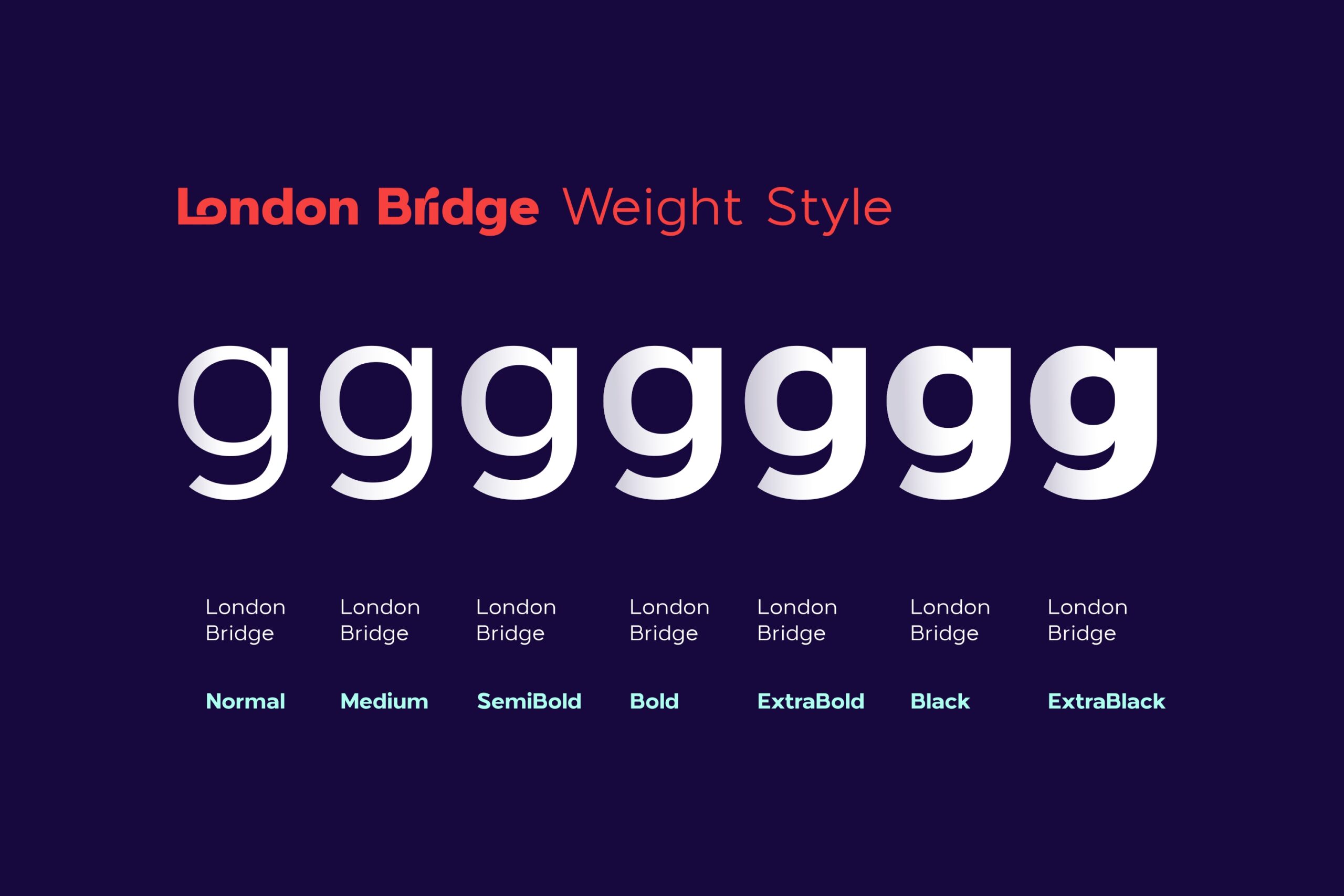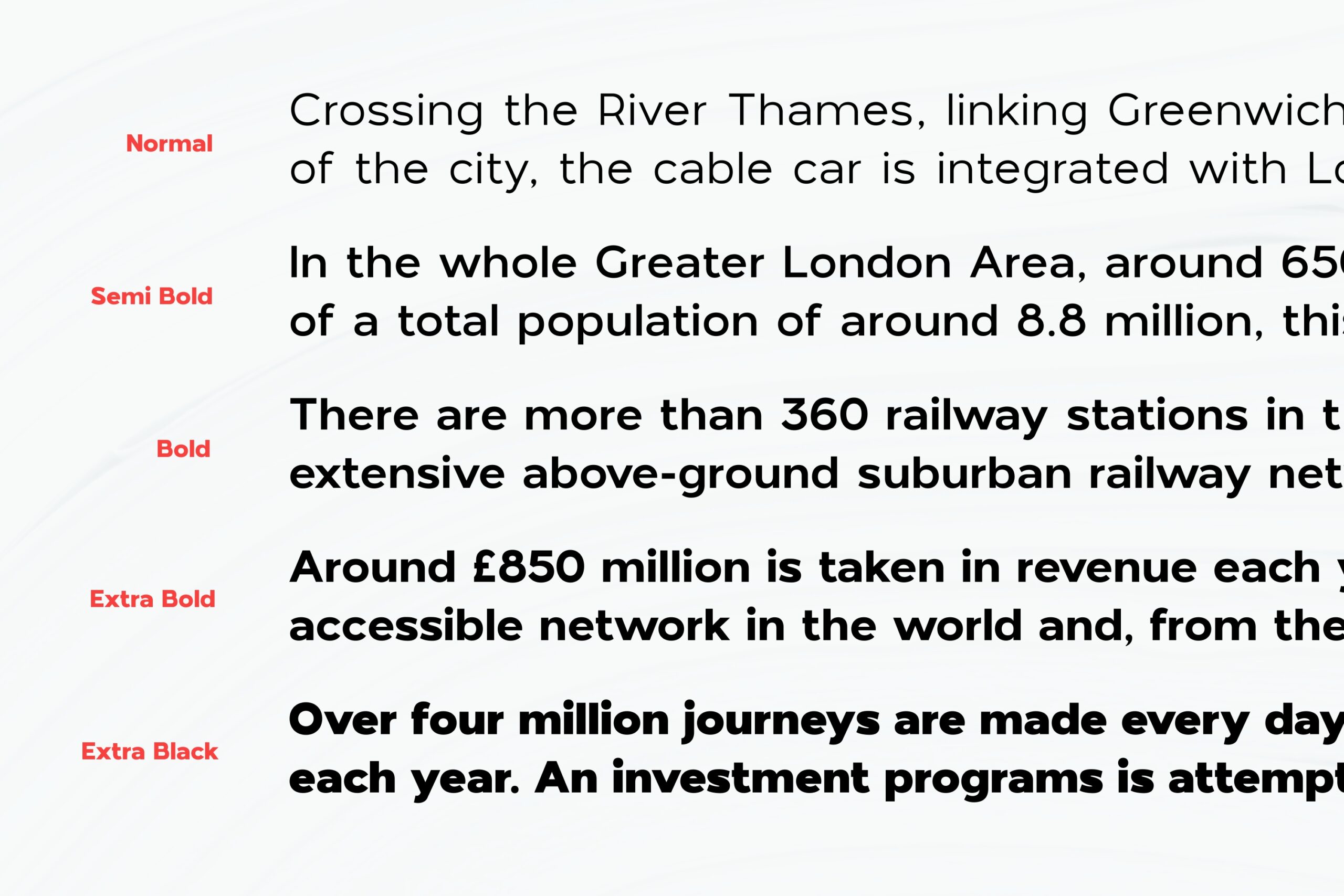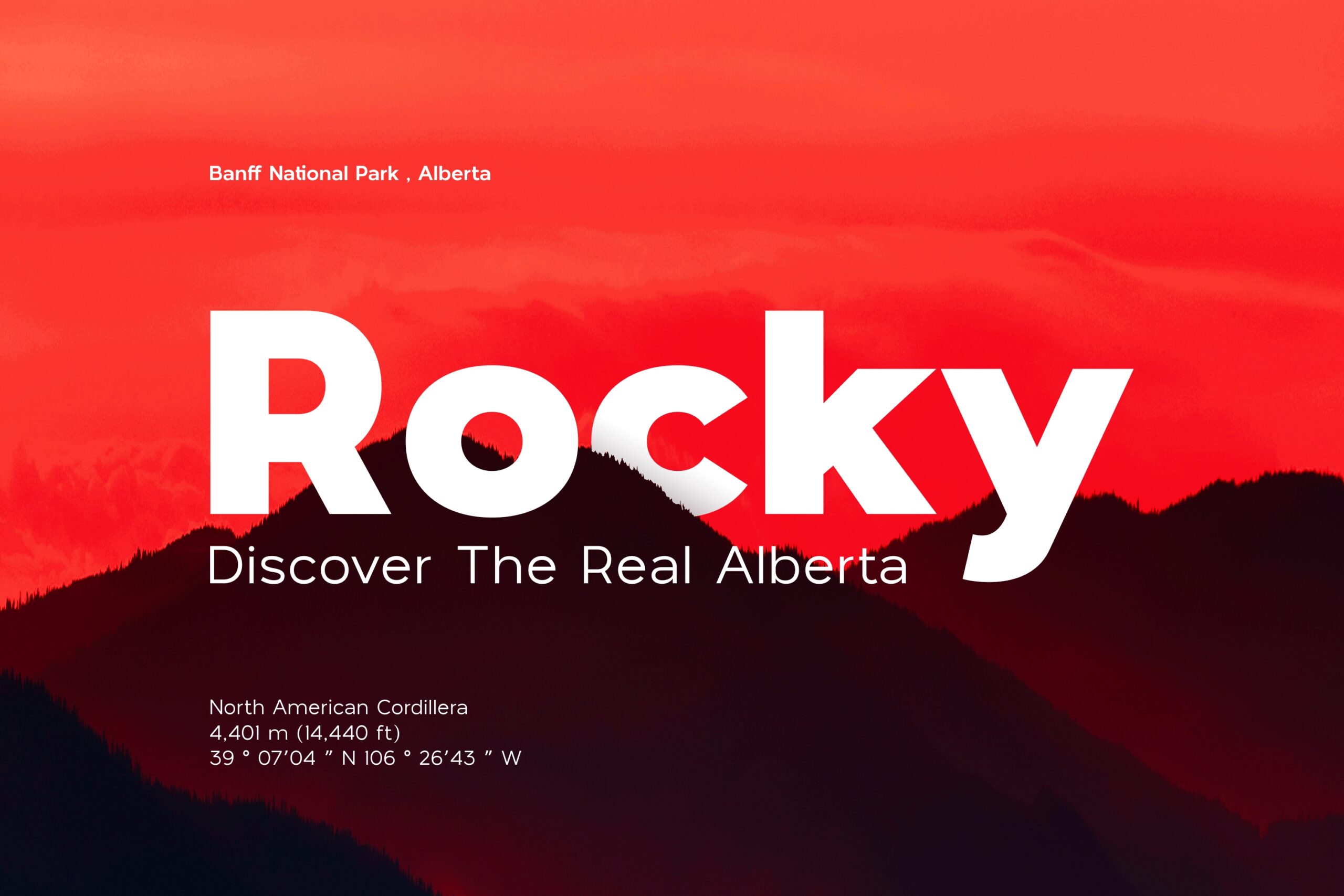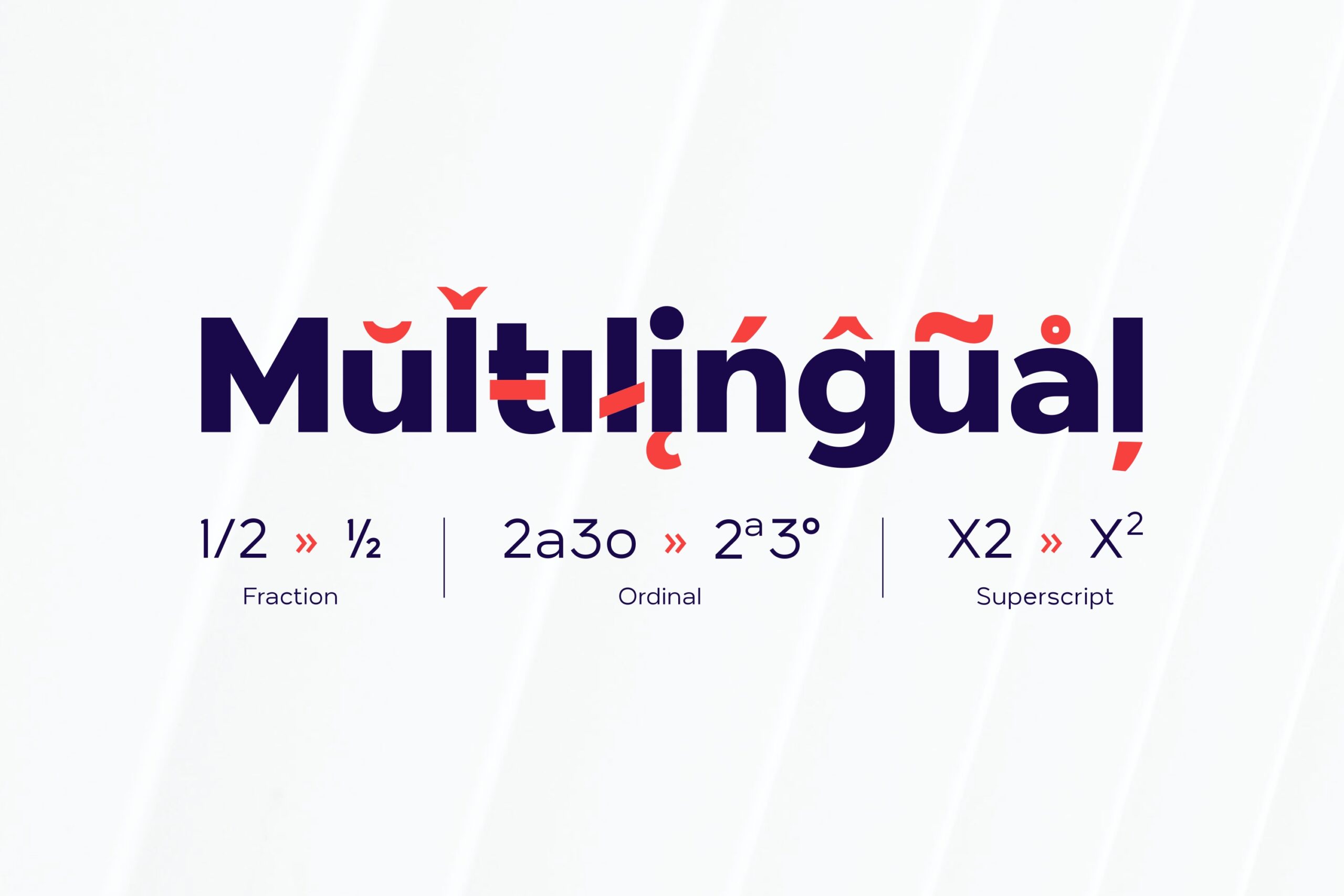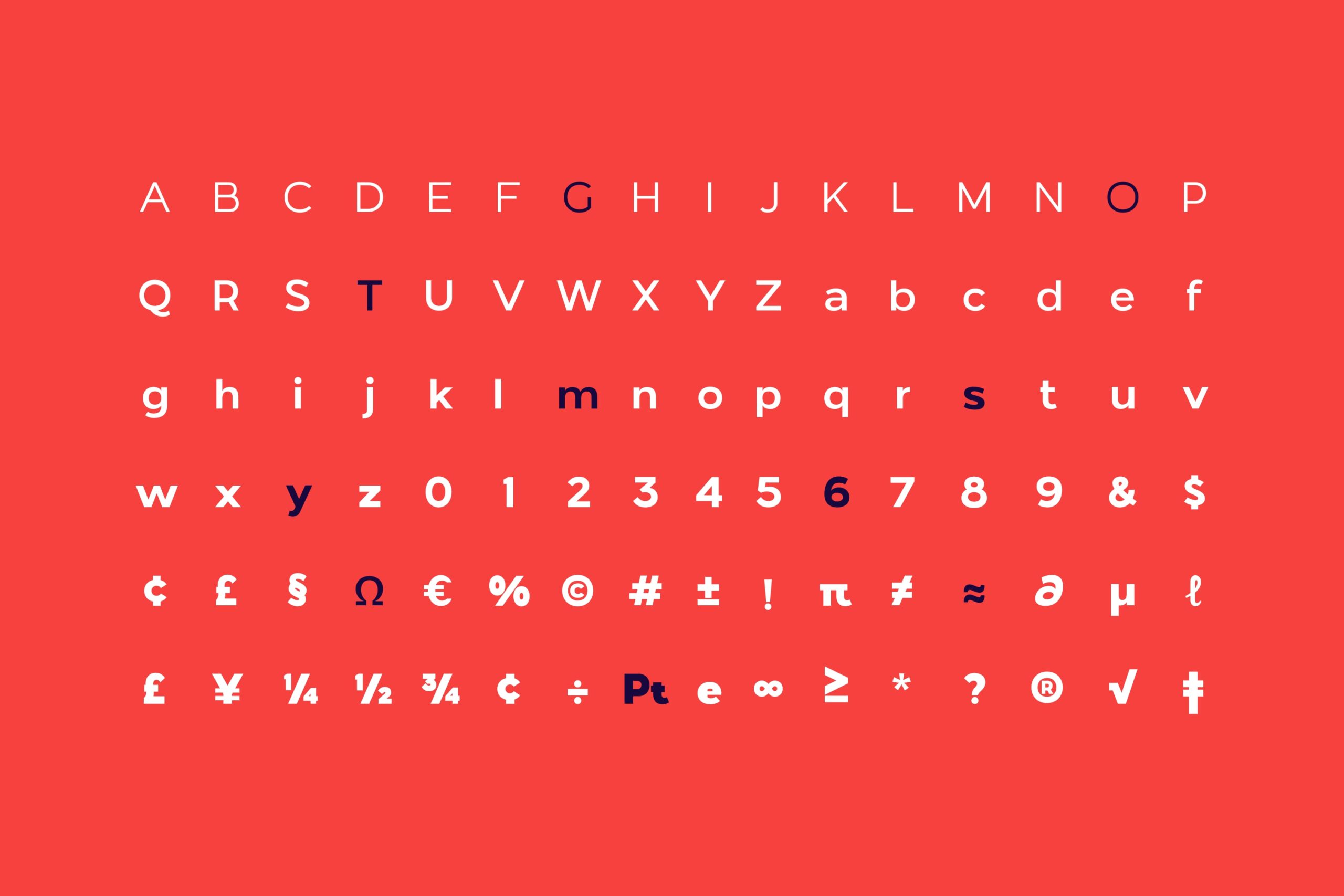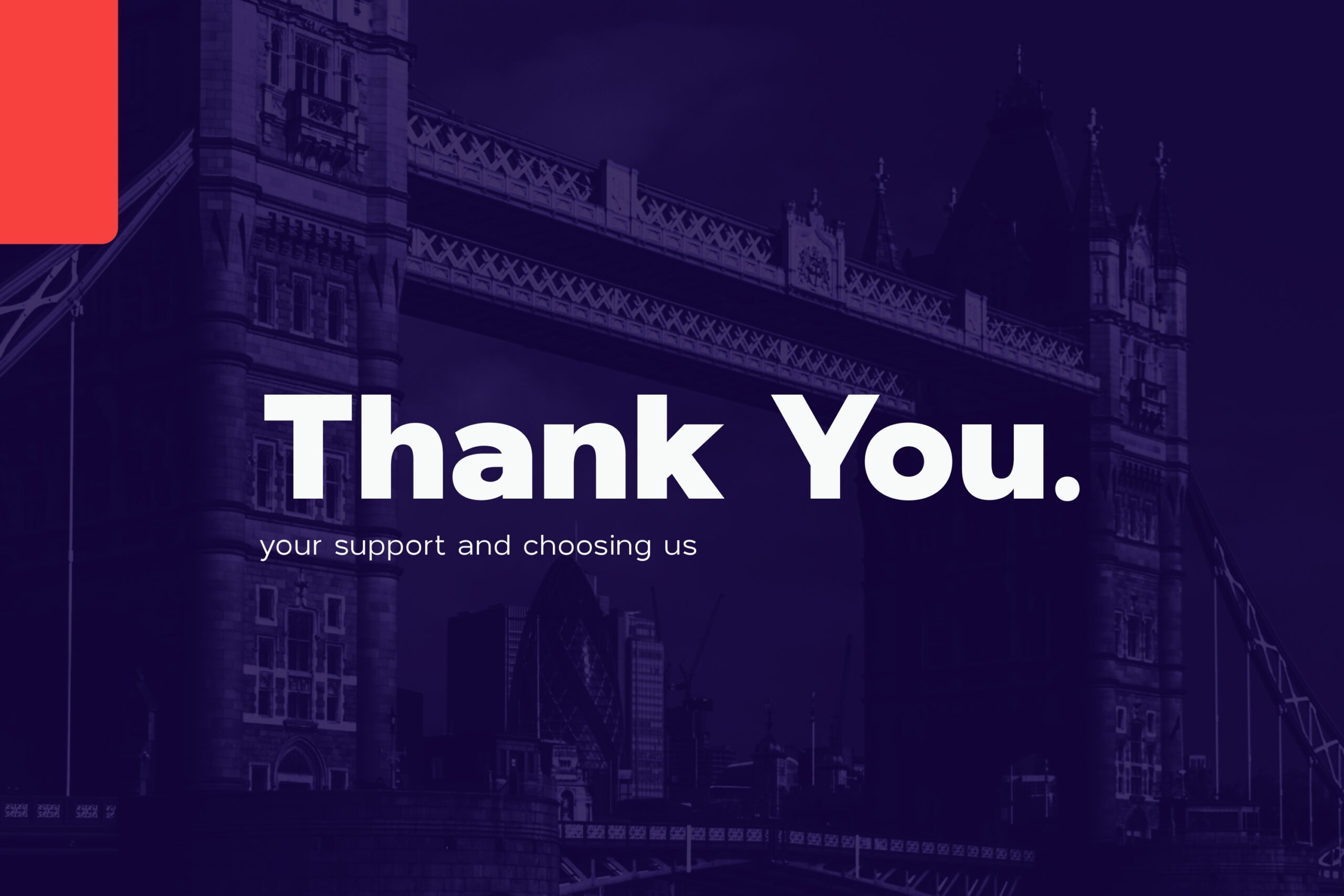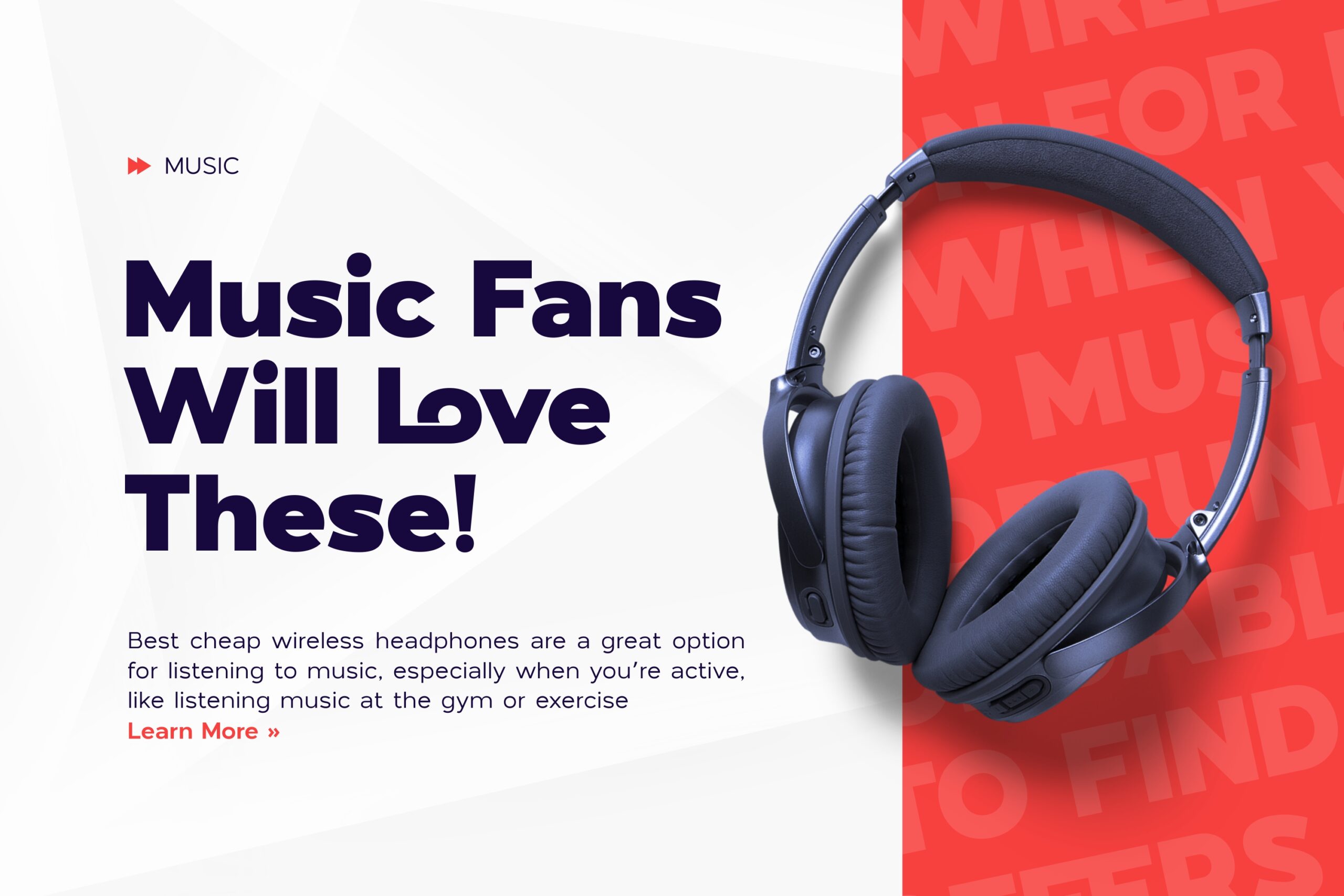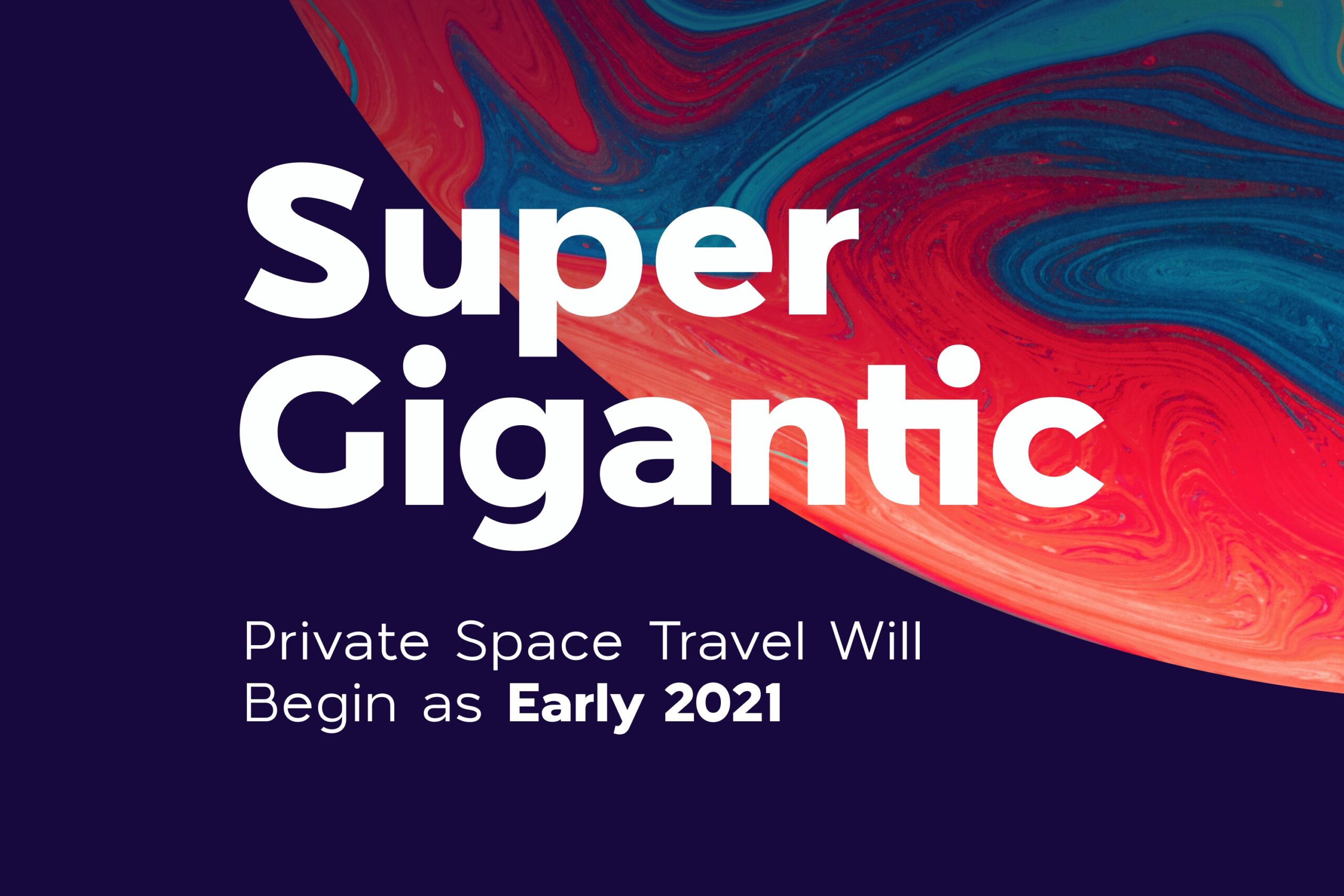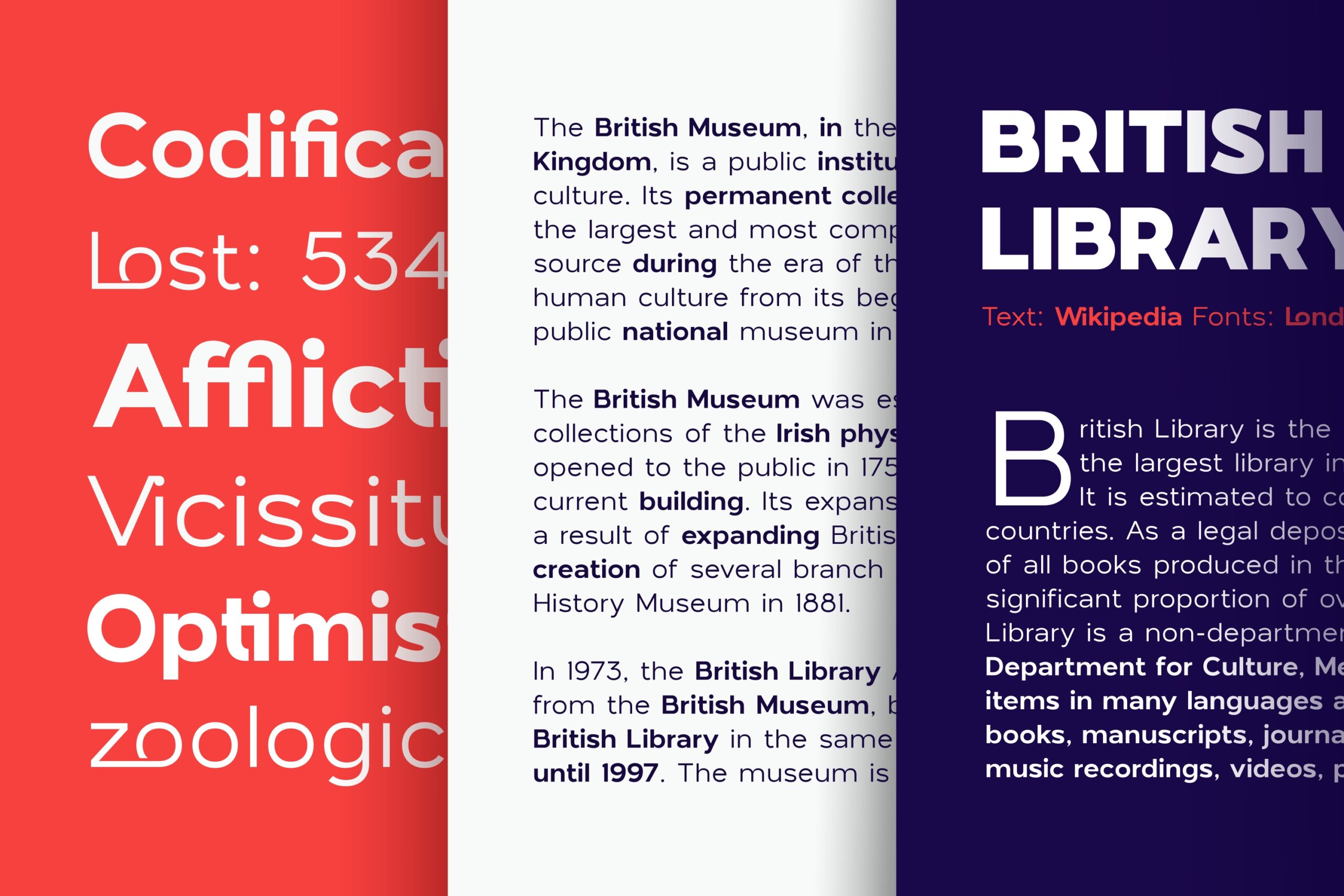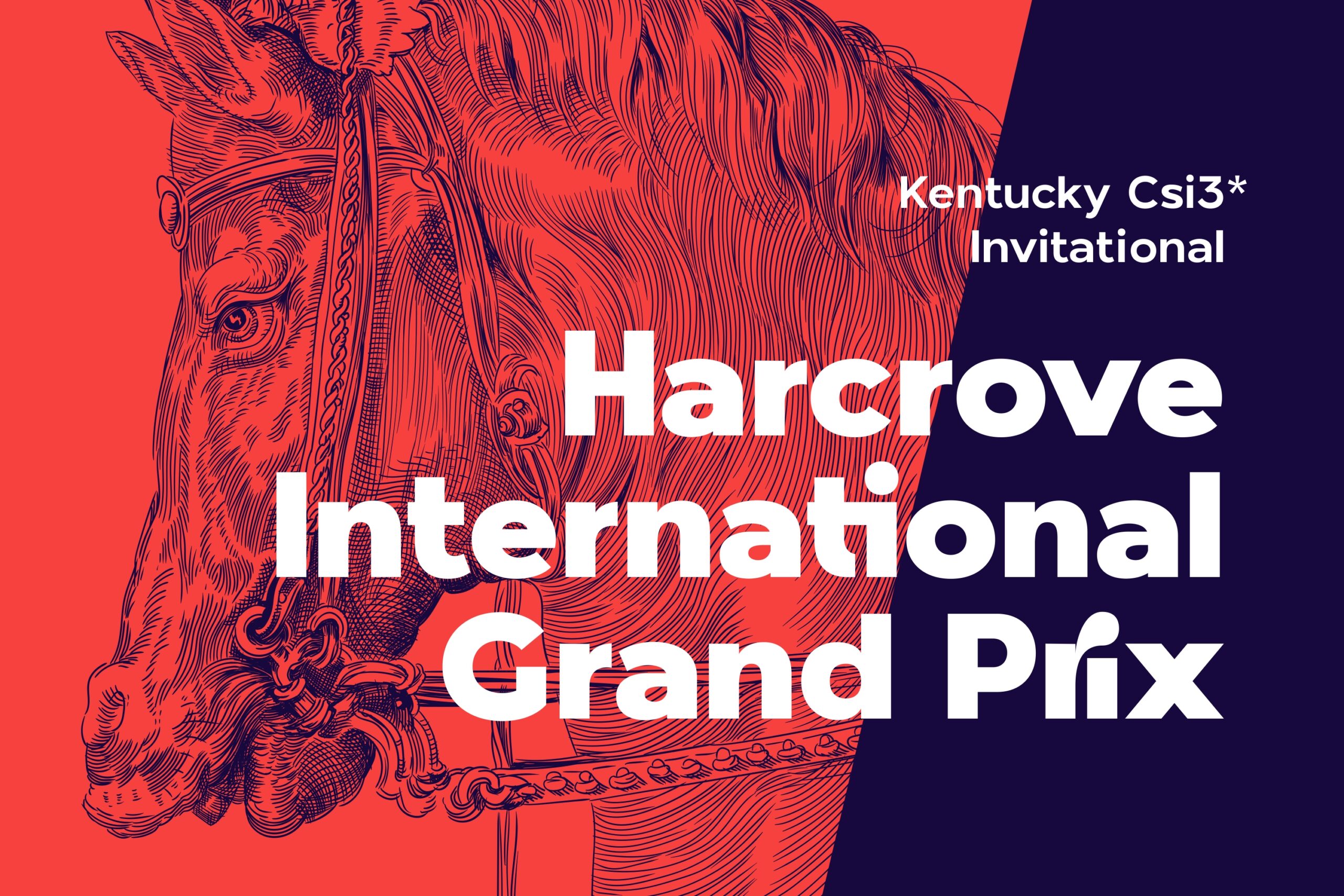
London Bridge is a modern and contemporary sans serif font family that combines clean geometry with bold personality. Featuring seven weights, this versatile typeface is designed to bring clarity and impact to any project, from editorial layouts and branding to digital interfaces. Its rounded edges and balanced proportions create a friendly yet professional look, making it an excellent choice for both display and text purposes.
With multilingual support, ligatures, fractions, ordinals, and superscripts, London Bridge offers everything you need for professional typography. Perfect for headlines, advertising, magazines, posters, packaging, and corporate identities, this typeface ensures your design stands out with confidence and modern elegance.
London Bridge